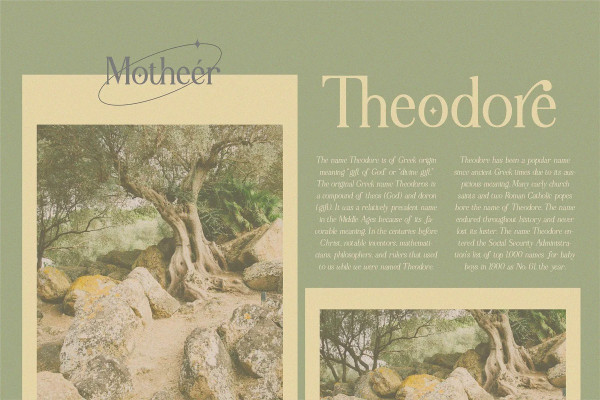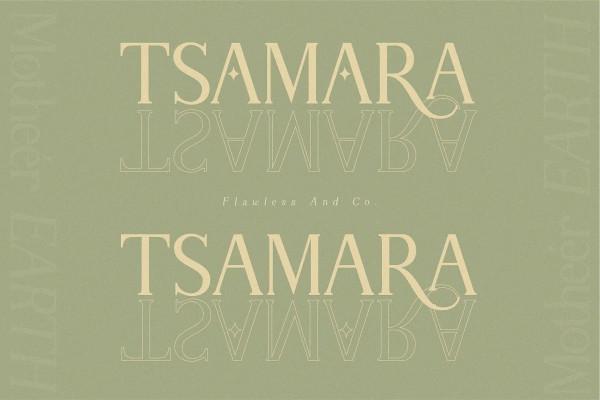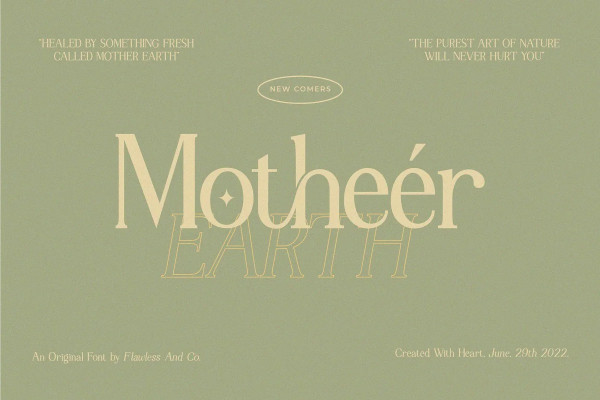
Motheer Font
Motheer Font – Modern Serif Font, our latest creation, modern serif with various alternates and ligatures, multilingual support, an updated blend of bohemian style, suitable for branding, business, logos, magazines, and others